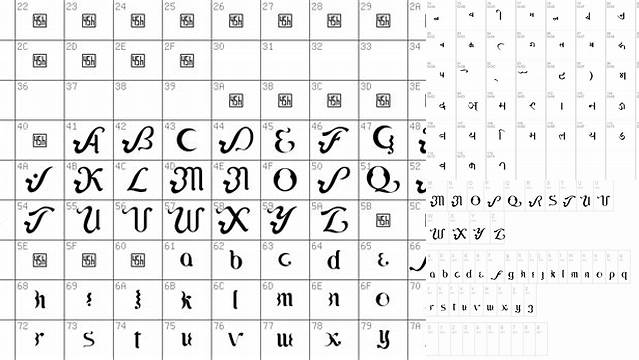
Hey guys, are you looking for a cool new font to spice up your designs or documents? Look no further! The Mahfuz Lipi font is a fantastic choice, especially if you're aiming for a touch of elegance and readability. In this article, we'll dive deep into everything you need to know about the Mahfuz Lipi font, including how to get a free download of the TTF version, its features, and how to use it effectively. Let's get started!
What is Mahfuz Lipi Font?
First things first, what exactly is the Mahfuz Lipi font? It's a beautiful and versatile typeface that's perfect for a wide range of applications. Designed with a blend of modern aesthetics and timeless appeal, the Mahfuz Lipi font strikes a great balance between style and functionality. Whether you're a graphic designer, a blogger, or just someone who loves to play around with text, this font is definitely worth checking out. The Mahfuz Lipi font stands out due to its clean lines, elegant curves, and excellent readability. It's designed to be both eye-catching and easy on the eyes, making it a great choice for everything from headlines and titles to body text and captions. This means that the Mahfuz Lipi font is suitable for use in a variety of contexts, including website design, print materials, social media graphics, and more. The font's versatility makes it a great asset in any designer's toolkit. The Mahfuz Lipi font is known for its unique character designs. The characters are crafted with great attention to detail, ensuring that each letter and symbol looks polished and professional. This attention to detail extends to the font's kerning and spacing, which are designed to optimize readability and visual appeal. The designers have taken great care to ensure that the Mahfuz Lipi font is both aesthetically pleasing and highly functional. If you're looking to create a visually stunning and easy-to-read design, then the Mahfuz Lipi font is definitely worth considering. Its unique design, coupled with its great readability, makes it a fantastic choice for various projects. The Mahfuz Lipi font is perfect for creating a lasting impression, whether it is for branding or personal use. The design's sophistication and readability make it an excellent choice for those looking to make a statement with their text. Overall, the Mahfuz Lipi font is a great option for anyone looking for a stylish and functional typeface. The design is a blend of modern aesthetics and timeless appeal. This makes it a versatile choice that is easy to incorporate into a wide array of design projects.
Key Features and Benefits
- Readability: The font is designed to be easily readable, making it great for both headlines and body text.
- Versatility: Suitable for a wide range of projects, from web design to print materials.
- Aesthetics: The font has a modern and elegant look, making it visually appealing.
- Professional Look: It adds a touch of professionalism to any design.
How to Use the Mahfuz Lipi Font Effectively
Once you've got the Mahfuz Lipi font installed, the fun really begins! Here are some tips on how to use the font effectively to get the best results:
Choosing the Right Context
The Mahfuz Lipi font works well in a variety of contexts, but here are some suggestions:
- Headlines and Titles: This font is a great choice for grabbing attention with a stylish headline.
- Logos and Branding: The font's elegant look can give your brand a professional and memorable identity.
- Website Design: Use it for headings, navigation menus, or even body text to create a cohesive design.
- Print Materials: Whether it's brochures, posters, or business cards, the Mahfuz Lipi font adds a touch of class.
Pairing with Other Fonts
To create a visually balanced design, consider pairing the Mahfuz Lipi font with other complementary fonts. Here are some ideas:
- Contrast: Pair Mahfuz Lipi with a simple, sans-serif font for body text. This provides a good contrast and improves readability.
- Consistency: For a more cohesive look, use different weights or styles of Mahfuz Lipi itself (if available) for headings and subheadings.
- Font Combinations: Experiment with different font combinations to find what works best for your specific project. A well-chosen font pairing can elevate your design.
Conclusion: Make the Most Out of the Mahfuz Lipi Font